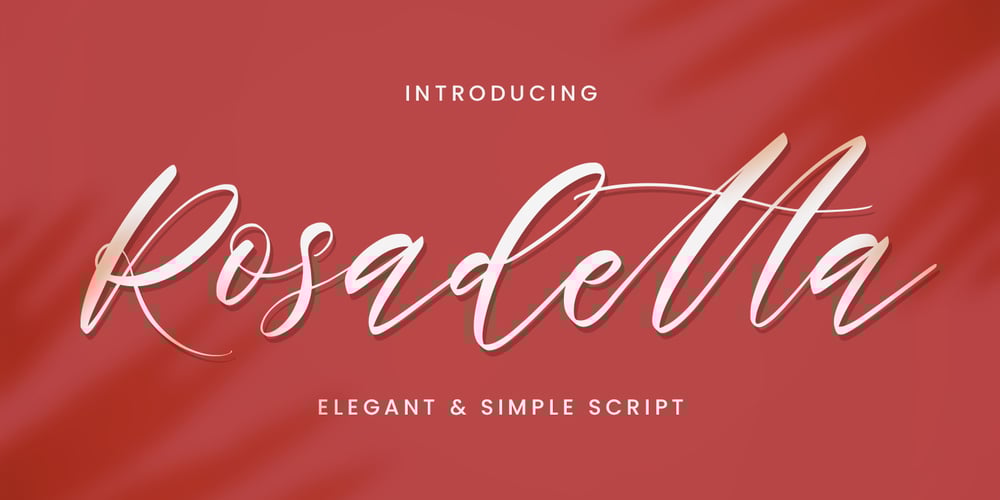
Rosadetta Font Family was designed by Abdul Malik Wisnu and published by Almarkha Type. Rosadetta contains 2 styles and family package options. Rosadetta is a Elegant script that feels elegant Handwritten, and modern. It is perfectly suited for a wide variety of projects! This handmade font will make your design has a beautiful natural touch for each details. It is perfect for any design project as Invitation,logo, book cover, craft or any design purposes.It also features a wealth of special features including alternate glyphs and ligatures.